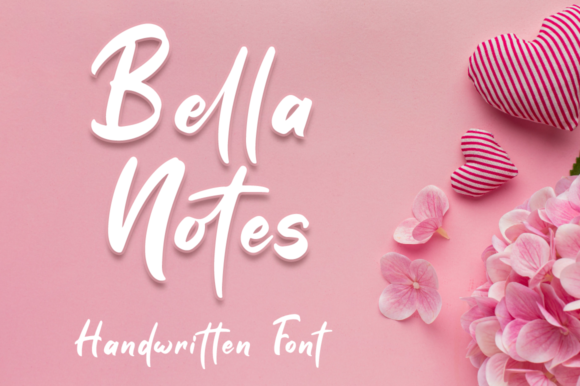
Bella Notes Font: The Perfect Addition to Your DIY Projects
Are you a designer or crafter looking for a unique and gorgeous font to bring your DIY projects to life? Look no further than Bella Notes Font! This cute and casual handwritten font is sure to add a touch of personality and whimsy to any project. In this article, we’ll take a closer look at Bella Notes Font and explore its features, benefits, and uses.
What is Bella Notes Font?
Bella Notes Font is a beautiful, handwritten font that is perfect for adding a personal touch to your DIY projects. Its casual and playful style makes it ideal for a wide range of applications, from crafting and scrapbooking to graphic design and digital art. With its unique and elegant lettering, Bella Notes Font is sure to make your projects stand out from the crowd.
Features of Bella Notes Font
So, what makes Bella Notes Font so special? Here are just a few of its key features:
- Cute and Casual Style: Bella Notes Font has a playful and informal style that is perfect for DIY projects and crafts.
- Handwritten Lettering: Each letter is carefully crafted to give the font a personal and human touch.
- Unique and Elegant: Bella Notes Font has a distinctive and sophisticated look that will add a touch of elegance to any project.
- Easy to Read: Despite its decorative style, Bella Notes Font is easy to read and understand, making it perfect for use in a wide range of applications.
Benefits of Using Bella Notes Font
So, why should you choose Bella Notes Font for your DIY projects? Here are just a few of the benefits of using this gorgeous font:
- Adds Personality: Bella Notes Font adds a personal touch to your projects, making them more unique and engaging.
- Versatile: This font can be used in a wide range of applications, from crafting and scrapbooking to graphic design and digital art.
- High-Quality: This font is designed to high standards, ensuring that it looks great in any project.
Uses for Bella Notes Font
So, what can you use Bella Notes Font for? The possibilities are endless! Here are a few ideas to get you started:
- Crafting and Scrapbooking: Add a personal touch to your scrapbook pages and craft projects with Bella Notes Font.
- Graphic Design: Use Bella Notes Font in your graphic design projects, such as brochures, flyers, and posters.
- Digital Art: Add a touch of elegance to your digital art projects, such as illustrations and paintings.
- DIY Projects: Use Bella Notes Font to add a personal touch to your DIY projects, such as signs, labels, and cards.
In conclusion, Bella Notes Font is a gorgeous and unique font that is perfect for adding a personal touch to your DIY projects. With its cute and casual style, handwritten lettering, and elegant look, this font is sure to make your projects stand out from the crowd. Whether you’re a designer or crafter, Bella Notes Font is a great choice for anyone looking to add a touch of personality and whimsy to their work.